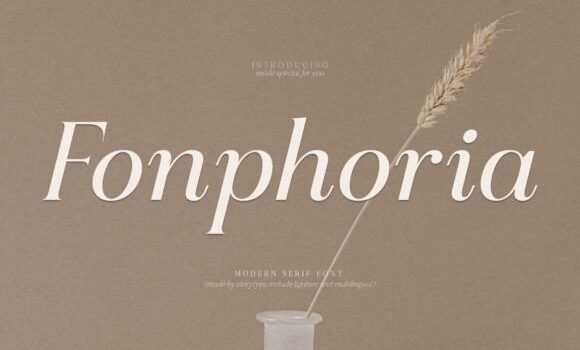
fonphoria
Fonphoria Font – Free Download Introduction to Fonphoria Font Proudly present Fonphoria Typeface , created by Storytype, A serif modern and classic typeface that has own unique style & modern look. 📸 Preview Gallery 6 images 📌 Product Name Fonphoria